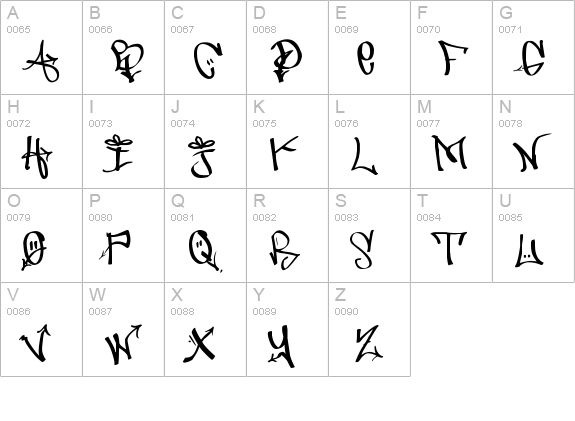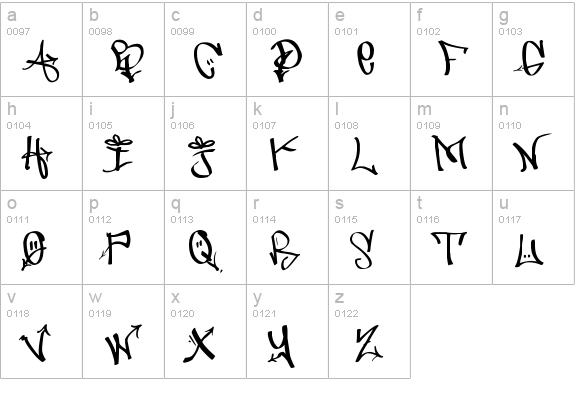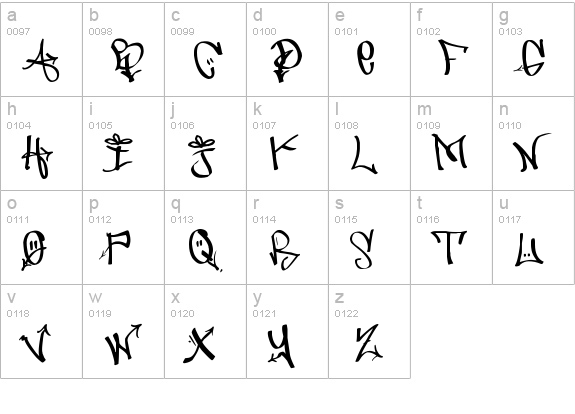
URBAN HOOKUPZ Bold is a strong, high-contrast variant in the URBAN typeface family \xE2\x80\x94 well suited to headlines, attention-grabbing titles, and strong calls-to-action.
URBAN HOOKUPZ Bold font is a modern and edgy typeface designed to make a statement in your designs. With its bold and striking appearance, this font is perfect for creating attention-grabbing headlines, posters, logos, and more. The strong, urban-inspired look of URBAN HOOKUPZ Bold will add a contemporary touch to any project. Best of all, URBAN HOOKUPZ Bold font is available for free download at FontsMarket.com. This means you can easily access this stylish and versatile font to enhance your creative projects without any cost. Don't miss out on the opportunity to add URBAN HOOKUPZ Bold to your font collection today!